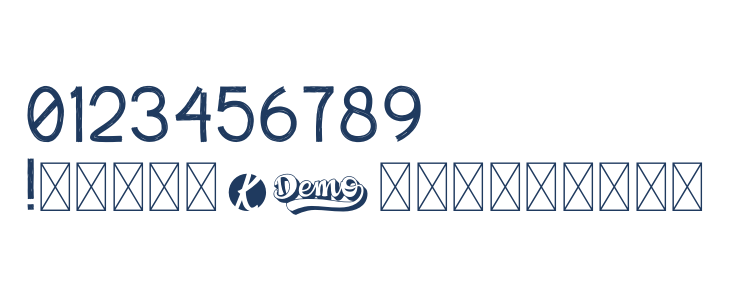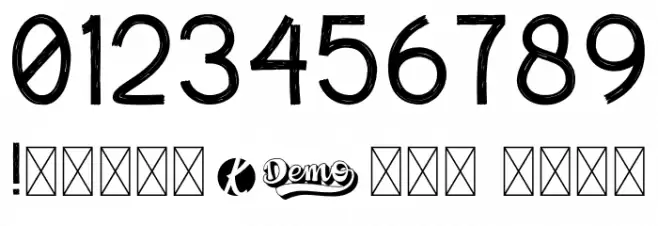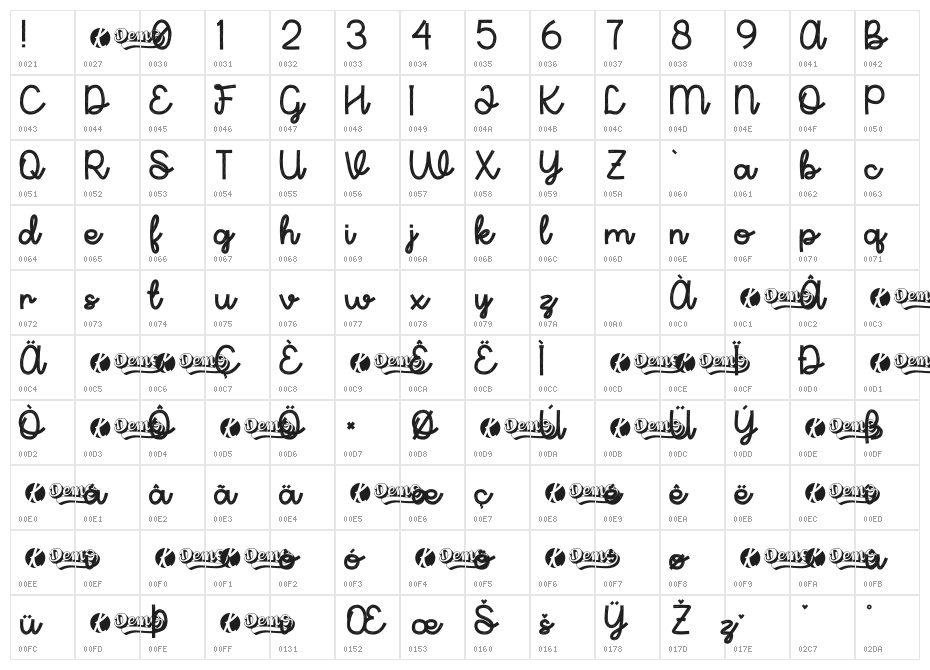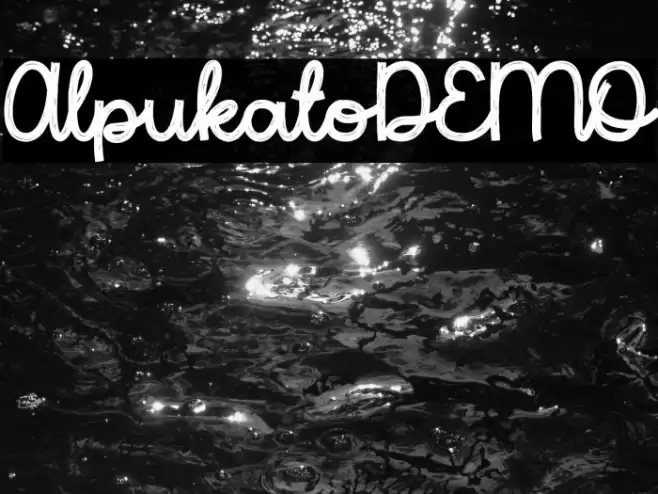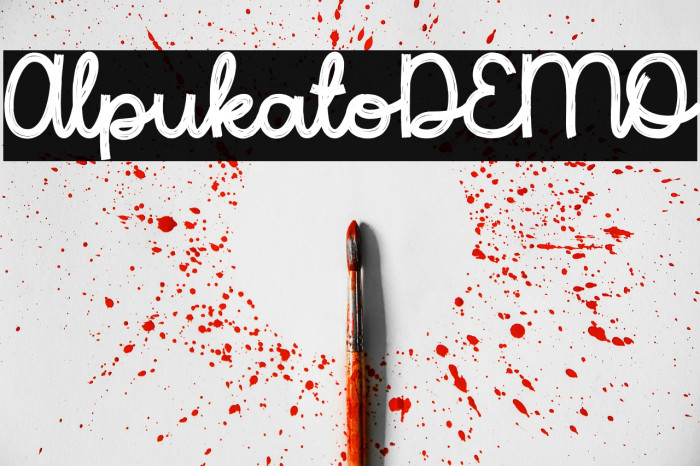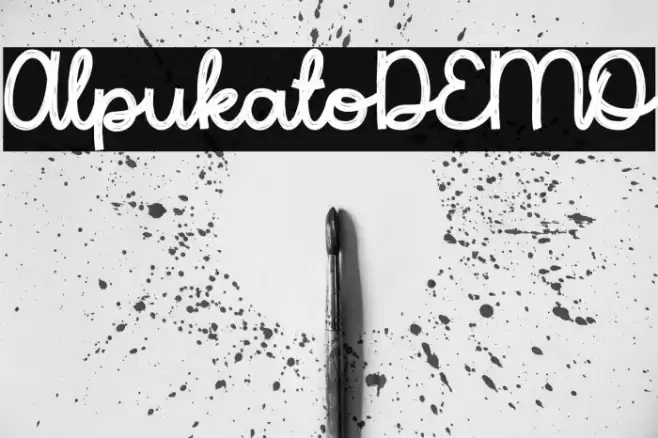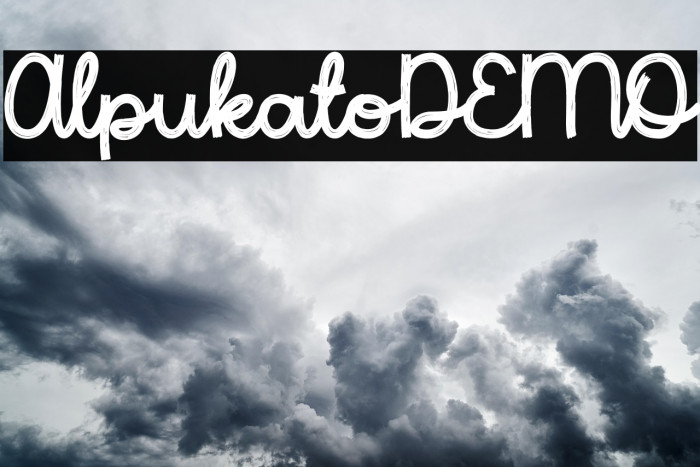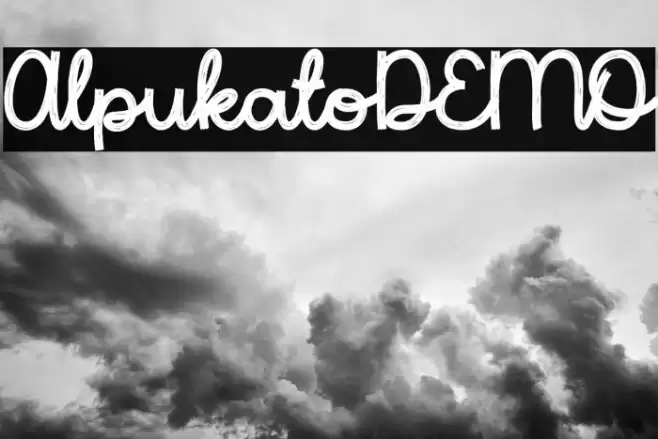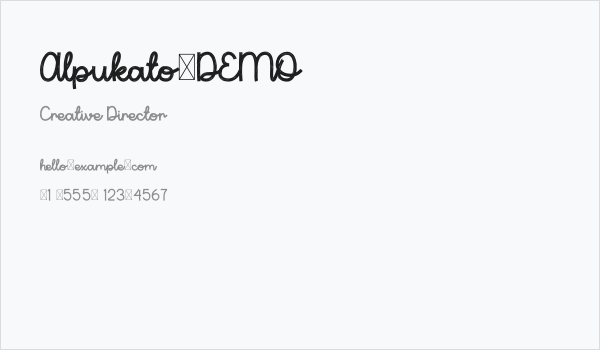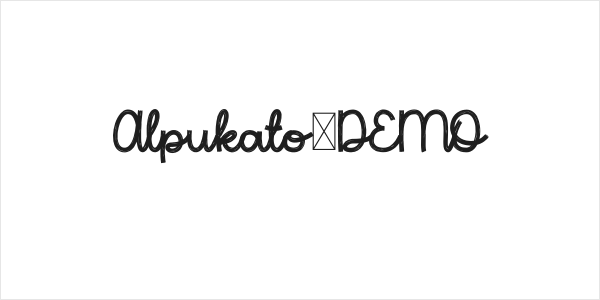
Alpukato-DEMO Font
Alpukato-DEMO Description
This font exhibits a playful and energetic style, characterized by its bold, hand-drawn appearance. The letters are interconnected with a smooth, flowing script that gives it a casual yet artistic feel. The uppercase and lowercase letters maintain a consistent style, with rounded edges and a slightly irregular baseline that adds to its charm. The numbers follow the same aesthetic, ensuring uniformity across all characters. This font is ideal for projects that require a touch of creativity and informality, such as invitations, posters, or branding for artistic ventures.
| Proposed Projects | Ideal for creative projects like invitations, posters, and artistic branding. |